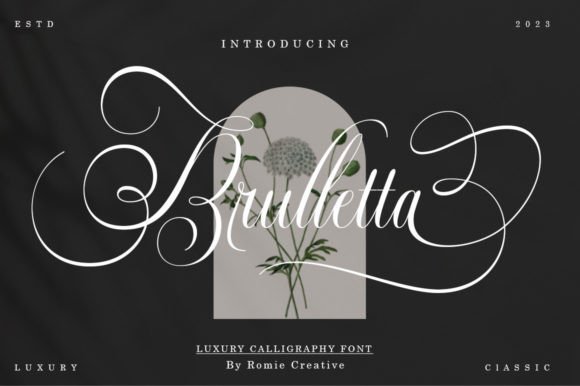
Step into the world of elegance and sophistication with Brulletta Font, a script font that exudes charm and beauty like no other. This calligraphy script is a masterpiece, carefully crafted by Romie Creative, designed to elevate your creative projects to new heights.
With its graceful strokes and delicate curves, Brulletta Font is the epitome of romance and femininity. It dances across the page like a ballerina, capturing the essence of love, joy, and heartfelt sentiments.
Whether you're a passionate designer seeking fonts for Instagram, a creative entrepreneur seeking calligraphy scripts for DIY projects, or a bride-to-be searching for the perfect font for wedding names, Brulletta Font is the answer. It transforms ordinary words into exquisite works of art, adding a touch of magic to every letter.
Unleash your creativity with Brulletta Font and watch your projects blossom into breathtaking masterpieces. Let your imagination soar as you explore the endless possibilities of this enchanting font.
With Brulletta Font, your designs will radiate elegance, your words will carry grace, and your projects will leave a lasting impression. Embrace the beauty of Brulletta Font and let your creativity shine!